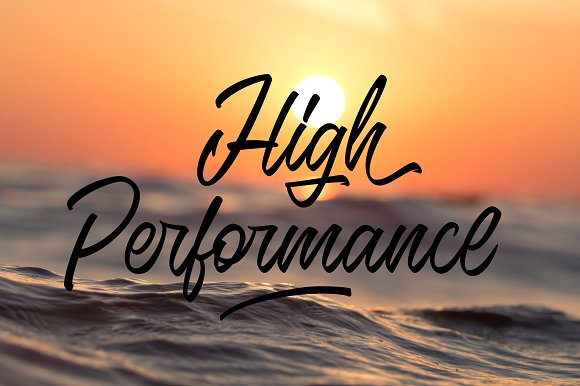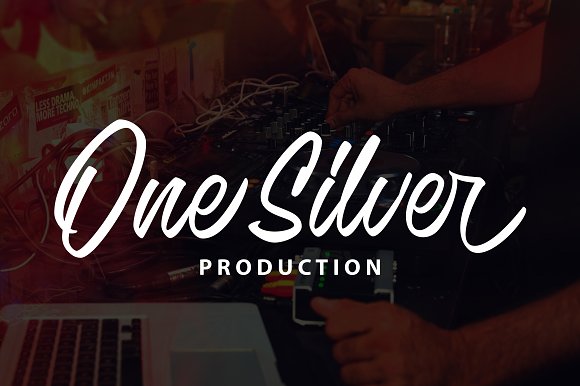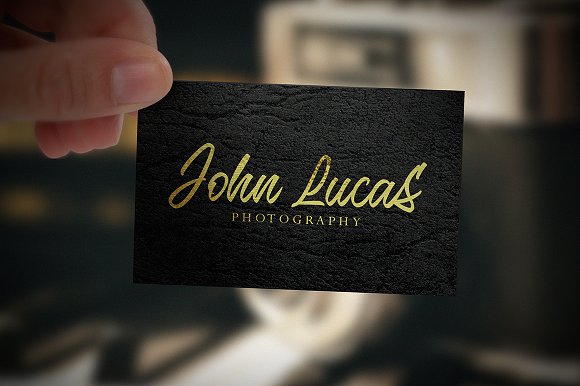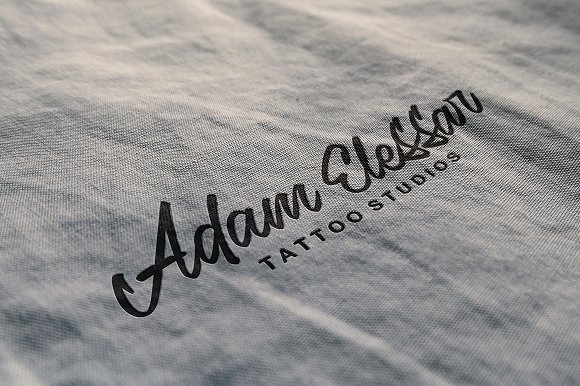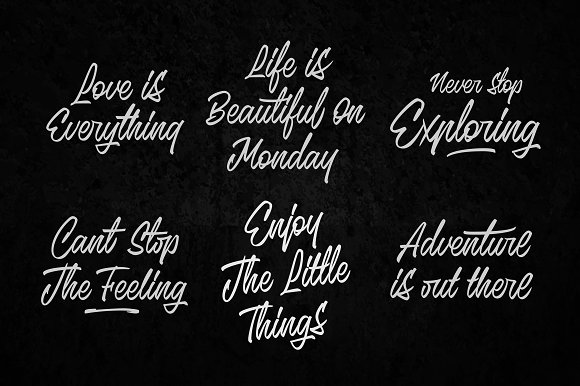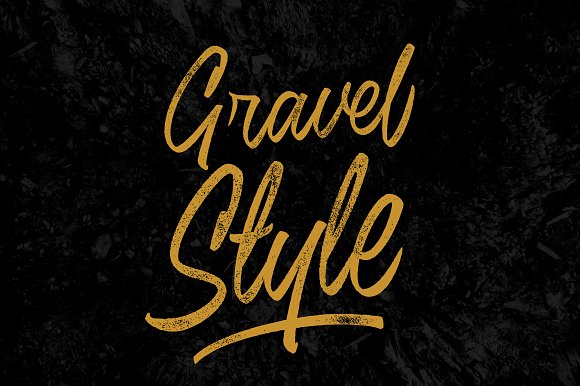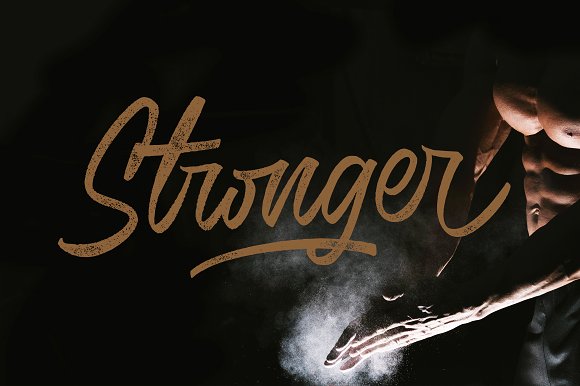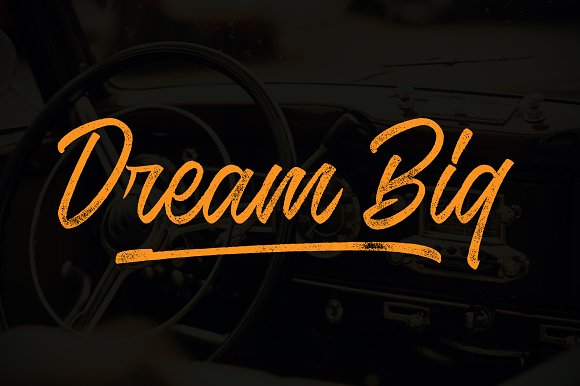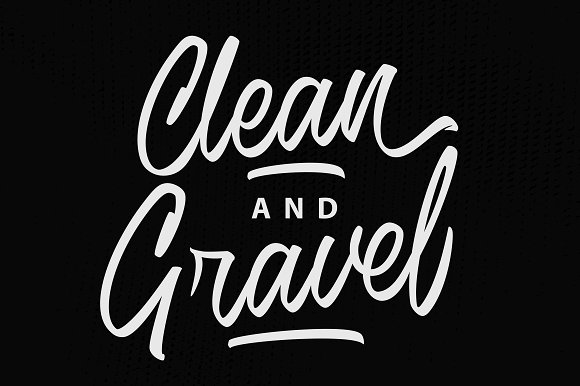
Seantero Font
Seantero is a casual script typeface with stylist style, clean and Gravel great movement this typeface and allow you to make lettering and logotype quickly and easily. This typeface is inspired by brush lettering, street art, and urban culture that feel so wild, strong and classy. This typeface is suitable to use for any project such as Logotype, Poster, Apparel Design, Label and etc.